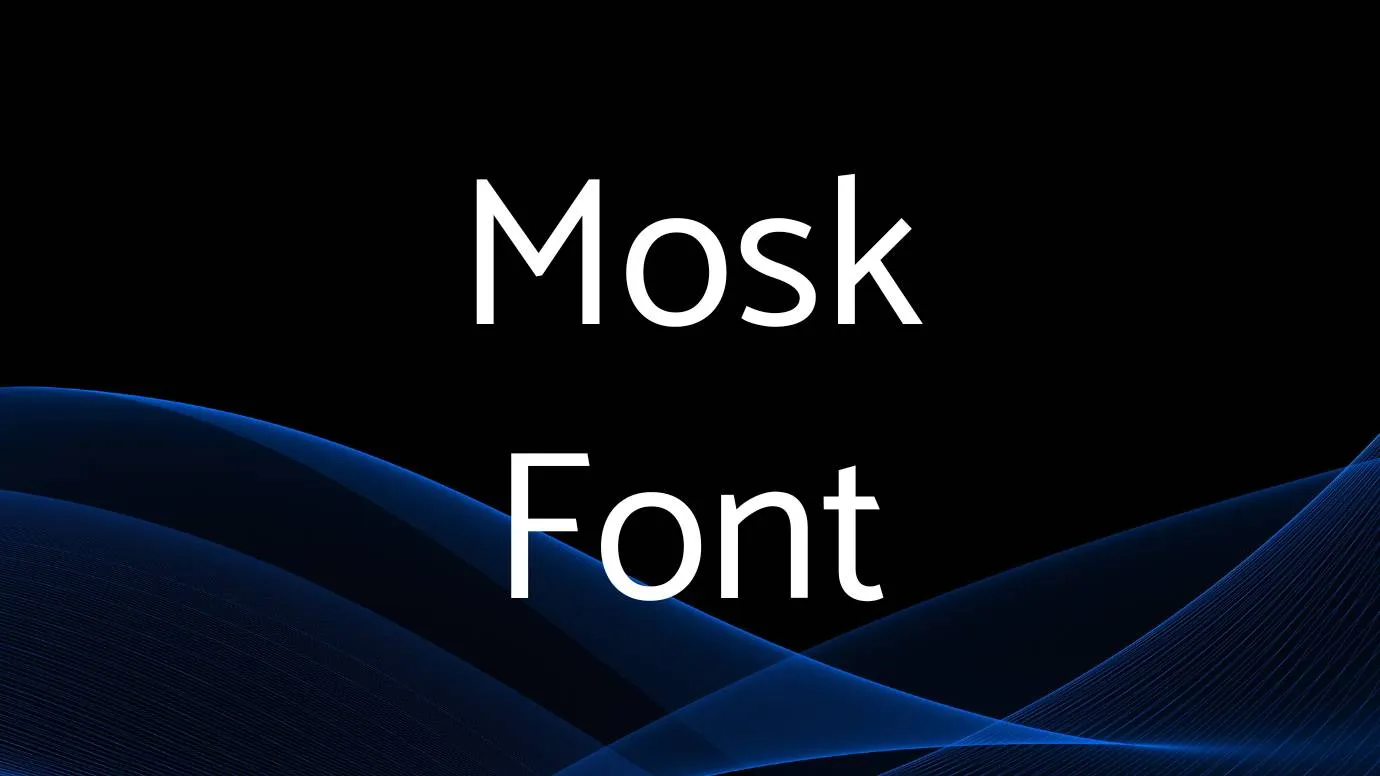
Mosk Font Family is a modern sans-serif typeface. Iulian Maftei is the original creator of this typography. A number of international languages support this amazing typeface like English, Greek, Zulu, Spanish, and other famous languages.
Name | Mosk Font |
Type | Sans Serif |
Designer | Iulian Maftei |
- You can use this texture for creating signboard designs, social media post designs, wall murals designs, banner designs, and so on related purposes.
- This attractive typeface is good for use in t-shirt designs, watermark logo designs, animated book covers, advertising, and social media post design purposes.
- By using this texture, you can create stationery designs, print media, creative card designs, and brochure layouts.
- This typeface is good for use in amazing headline designs, title designs, stylish thumbnail designs, name designs, web pages, and landing page designs projects.
The main designer of this modern font is Iulian Maftei and it comes in the sans serif font family with unique features.
Yes, Gravity font is the perfect alternative to this amazing typeface that comes with smooth and clean characters.